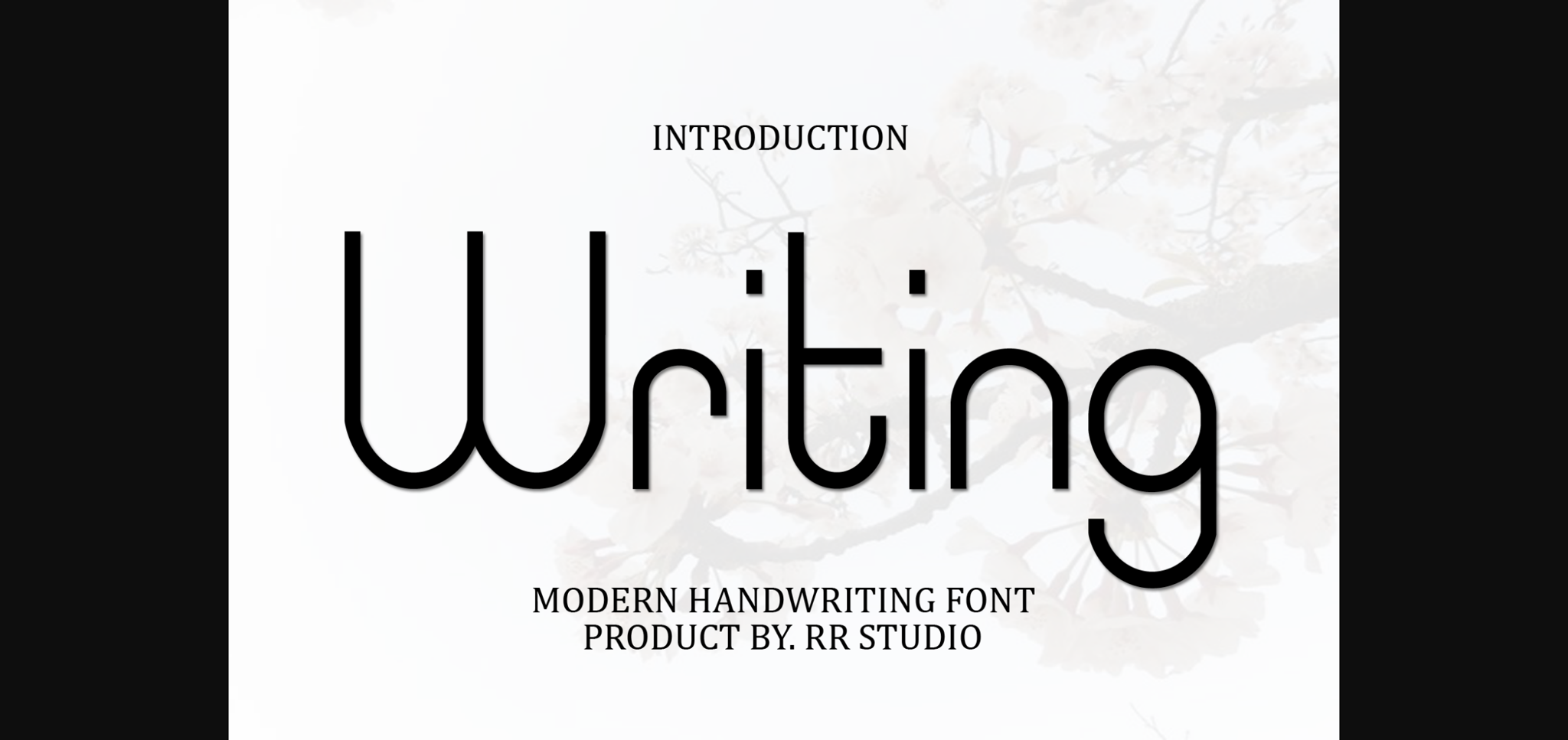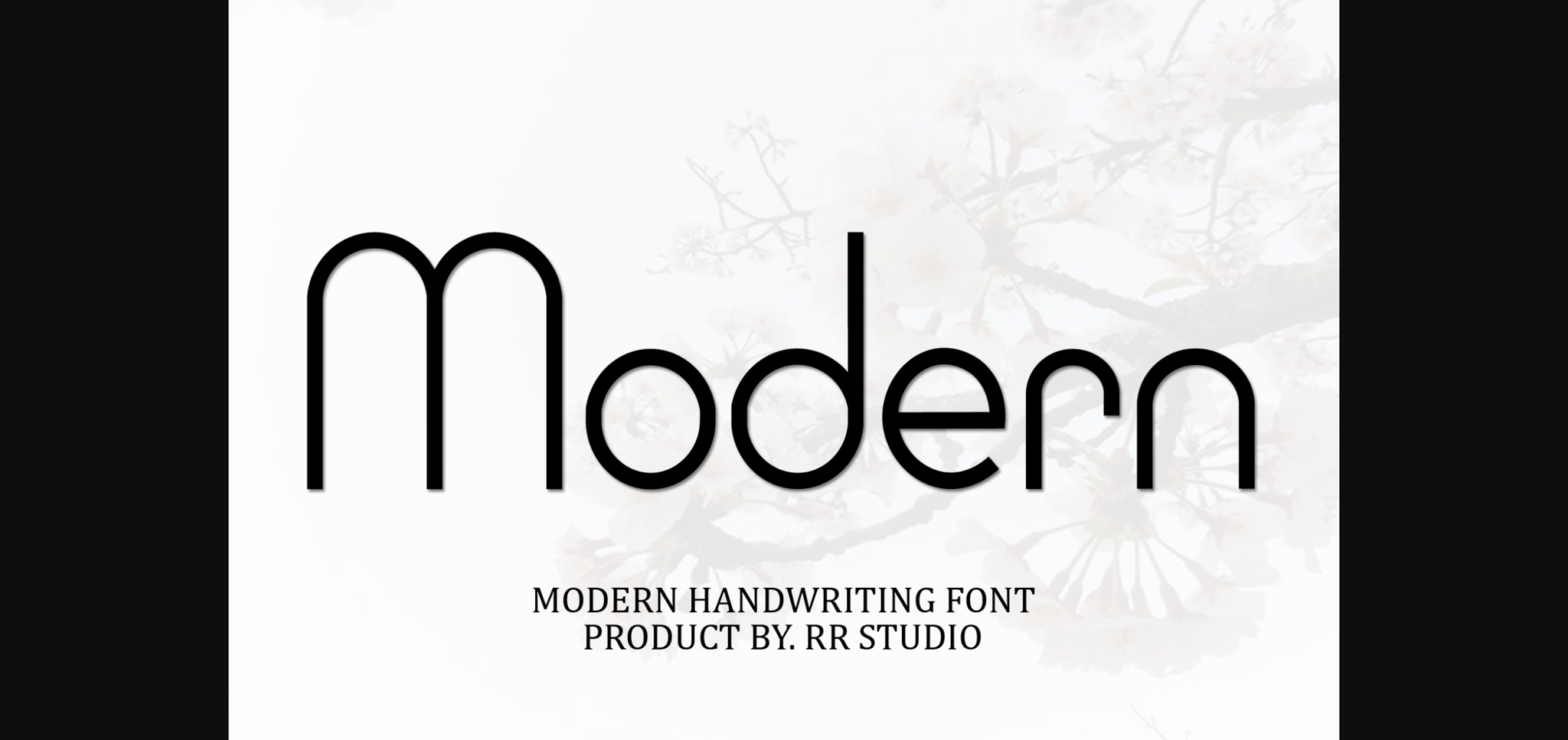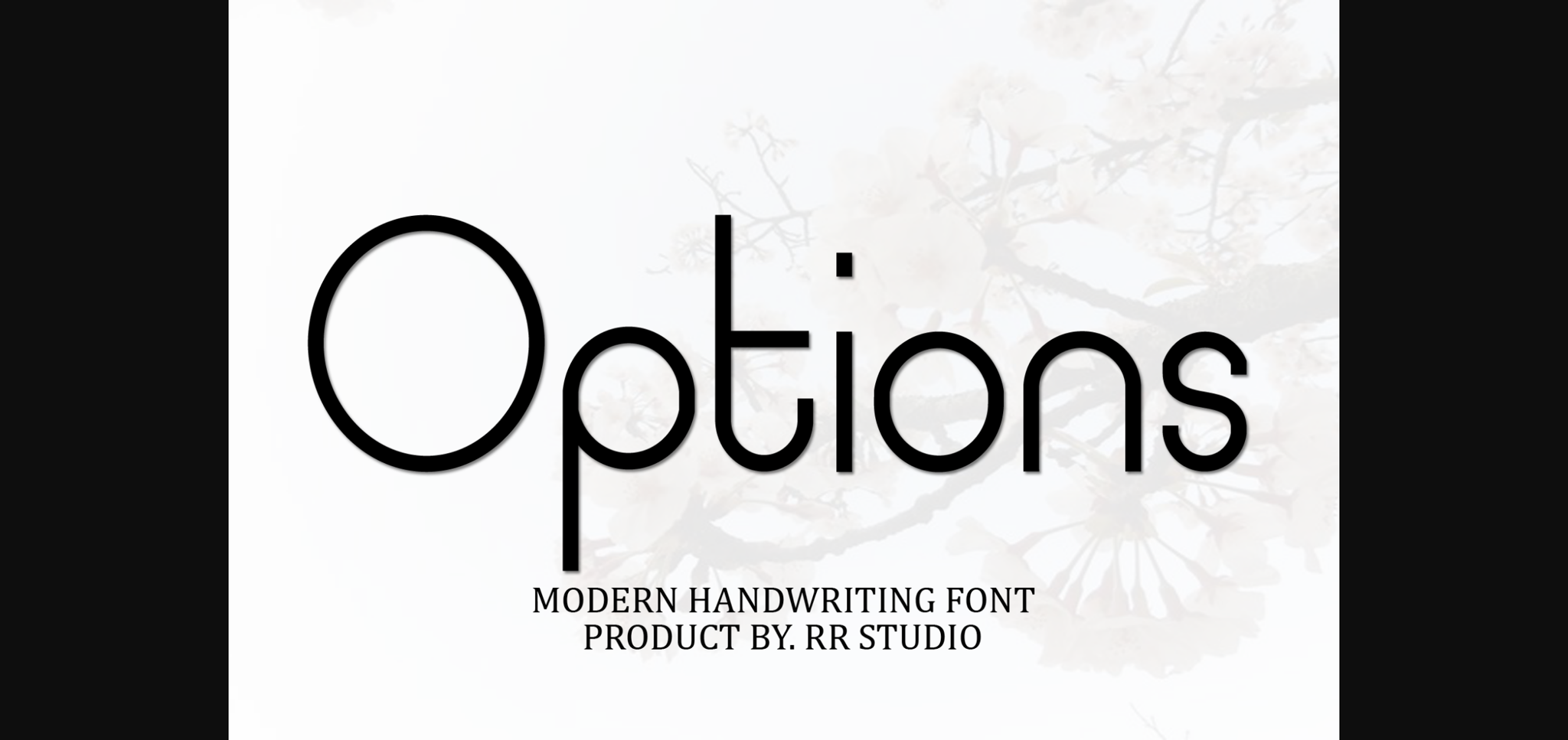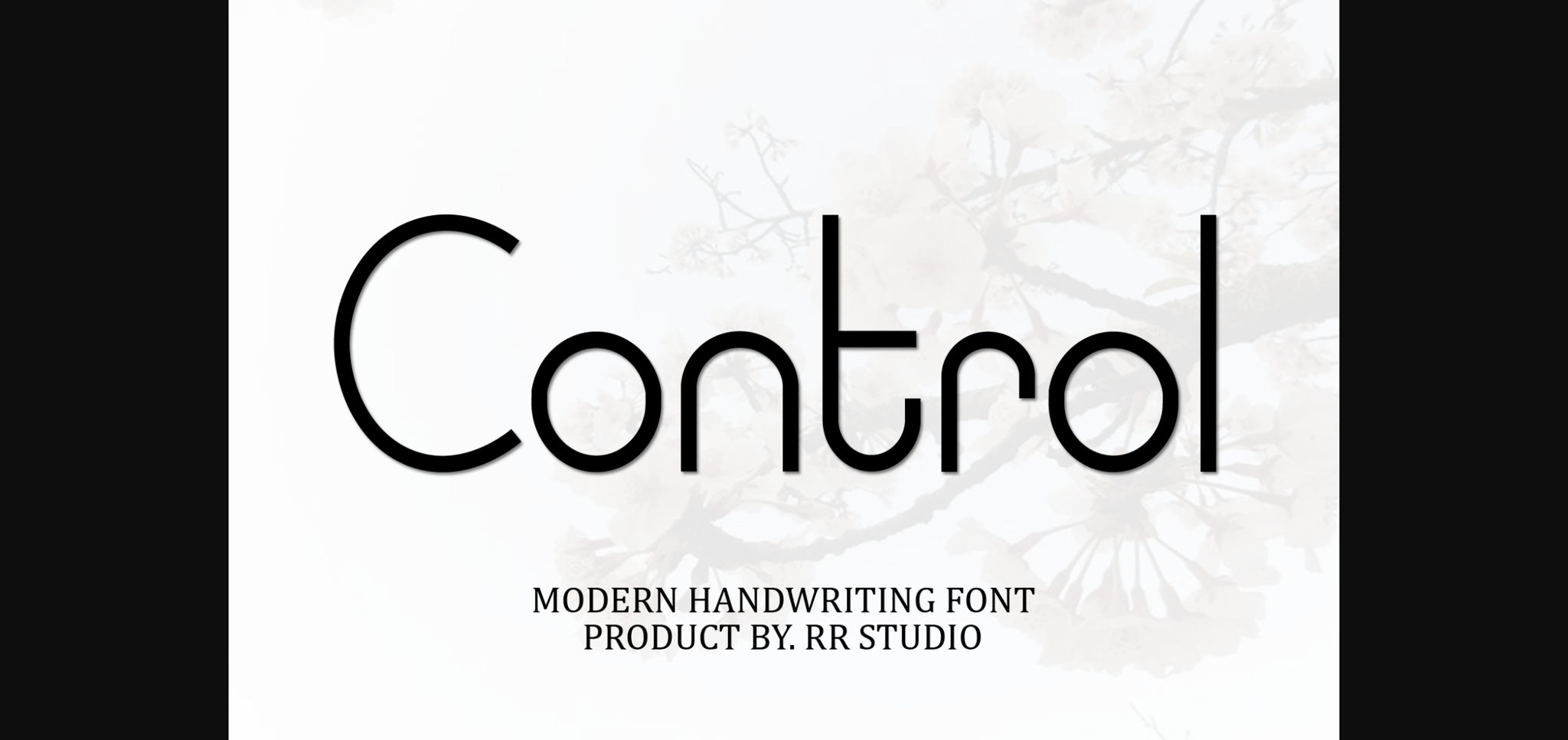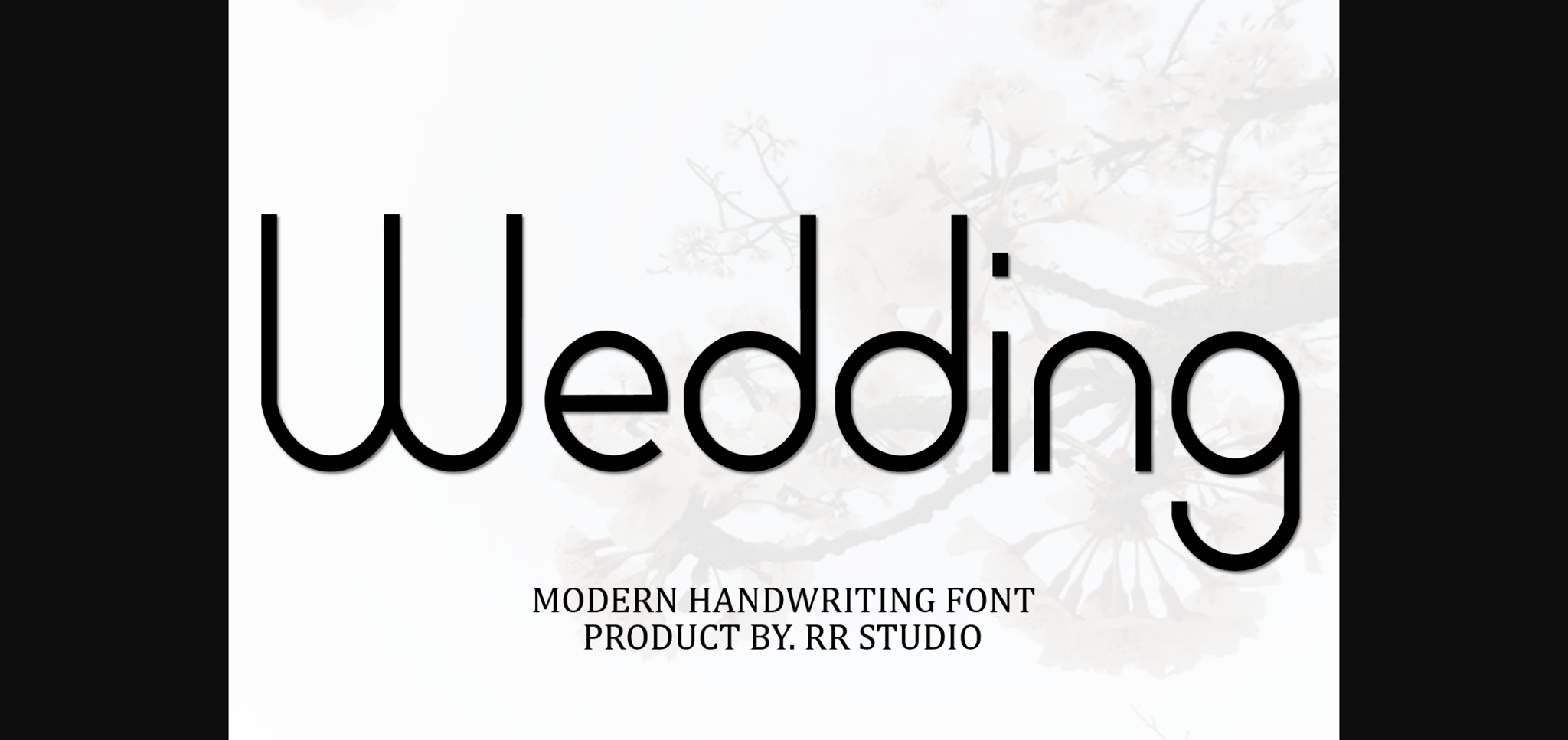
HomeSans Serif FontsWriting Font Sans Serif Fonts Writing Font FacebookXPinterestWhatsApp 1 of 8 ... Writing Font Poster 2... Writing Font Poster 3... Writing Font Poster 4... Writing Font Poster 5... Writing Font Poster 6... Writing Font Poster 7... Writing Font Poster 8... About Writing Font Writing is a flowing, sleek, and trendy sans-serif font. Add it confidently to your crafty projects and enjoy the results! DOWNLOAD NOW People also explored Gumithir Font Copeland Font Rushmore Font Trebloem Font Malahayati Script Font Lady Nature Font Generous Font Arthalia Font Shiny Morning Font 364 0 TagsWritingWriting Font Previous articleThe Street Style FontNext articleForever Together Font LEAVE A REPLY Cancel reply Comment: Please enter your comment! Name:* Please enter your name here Email:* You have entered an incorrect email address! Please enter your email address here Website: Save my name, email, and website in this browser for the next time I comment. Personal Use Free Nickainley Personal Use Free Read more about this font Super Bubbly Font Personal Use Free Read more about this font Stone Cold Personal Use Free Read more about this font Splatter Splash Personal Use Free Read more about this font BLOG Free vs Paid Fonts: Why Investing in Premium Fonts Is Worth It Free vs Paid Fonts: Why Premium Fonts Are Worth It in 2025 The debate of free vs paid fonts continues in the design world. While... The 10 Best Handwriting Fonts to Add Personality to Your Designs Top 7 Google Fonts Alternatives for Faster and Privacy-Friendly Web Design (2025) Transform Your Website: Elevate Your Typography with 7 Best Web Font Generators